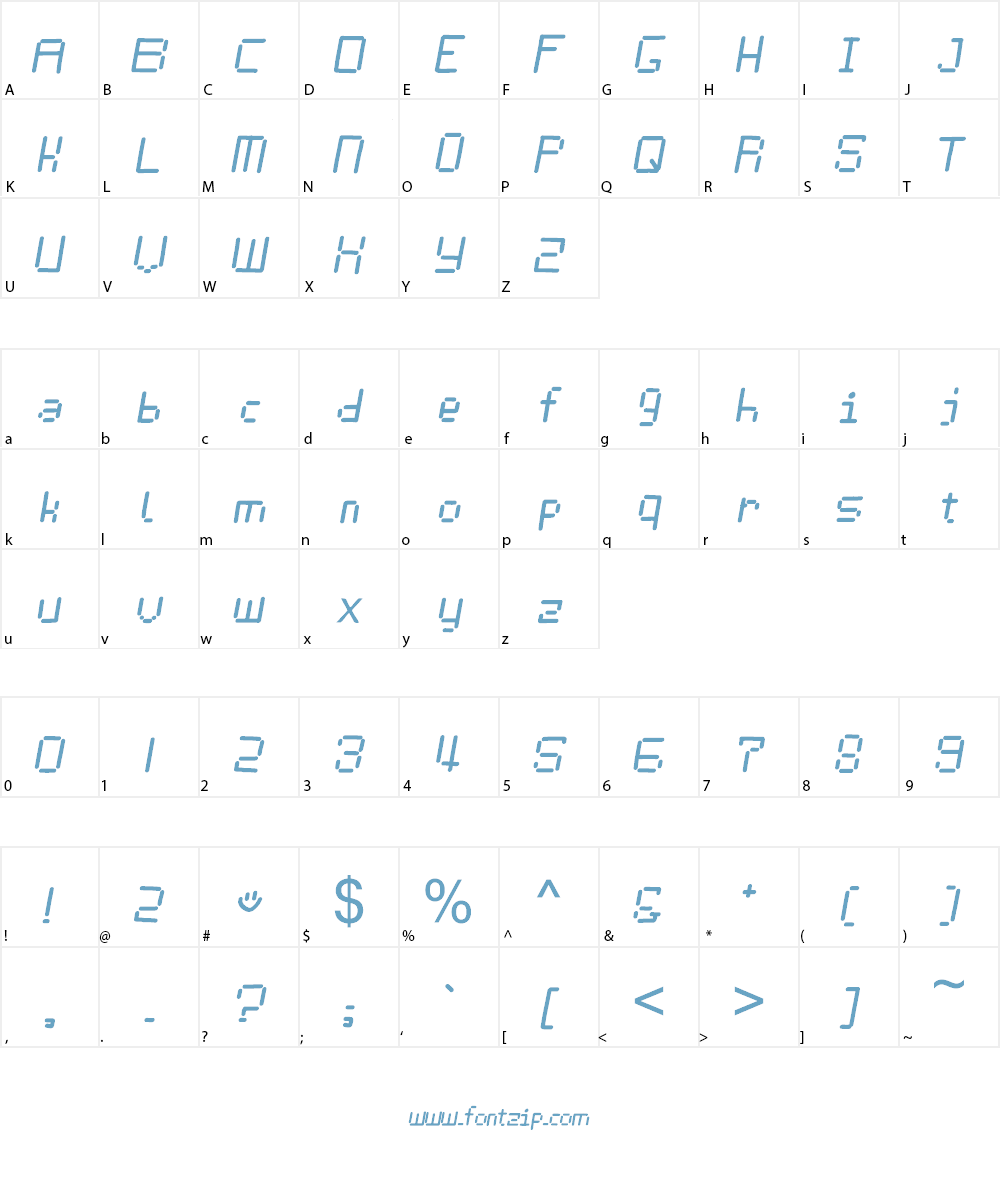
This font series is sort of a new generation to our earlier release, called Poland Canned Into. It is made up of silly or weird variations of Mixed Up Distortio, Asimovation and Xanthus 1 round 2 LCD.